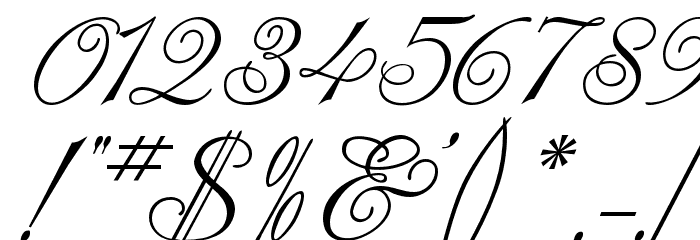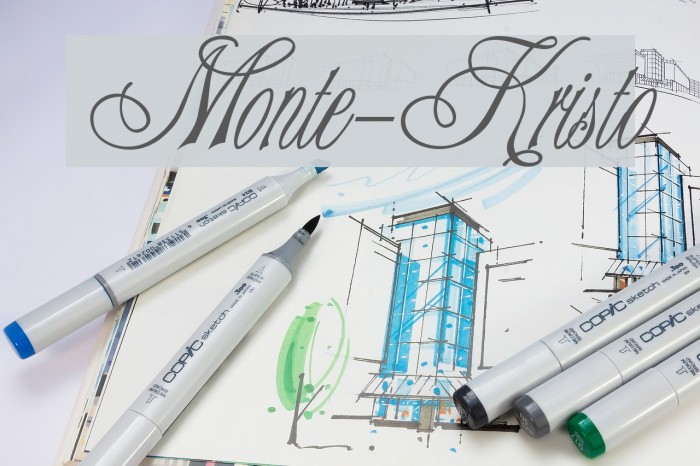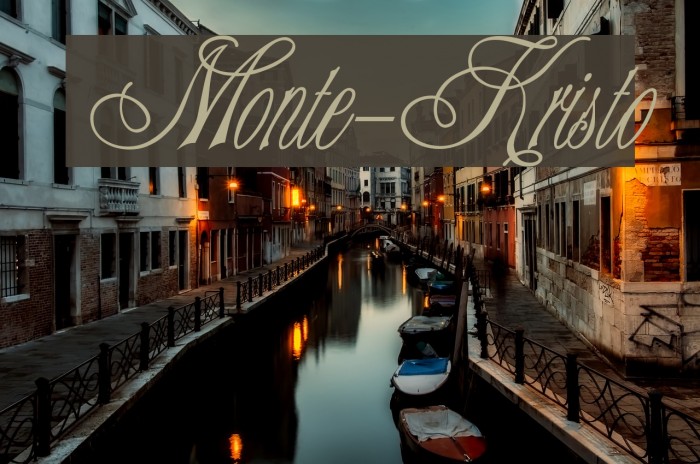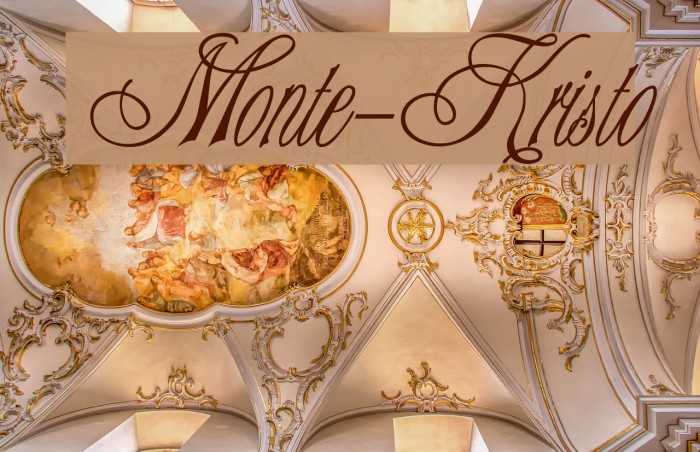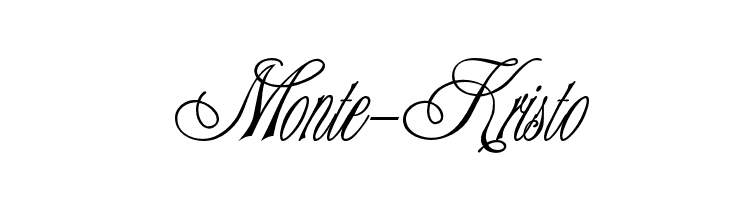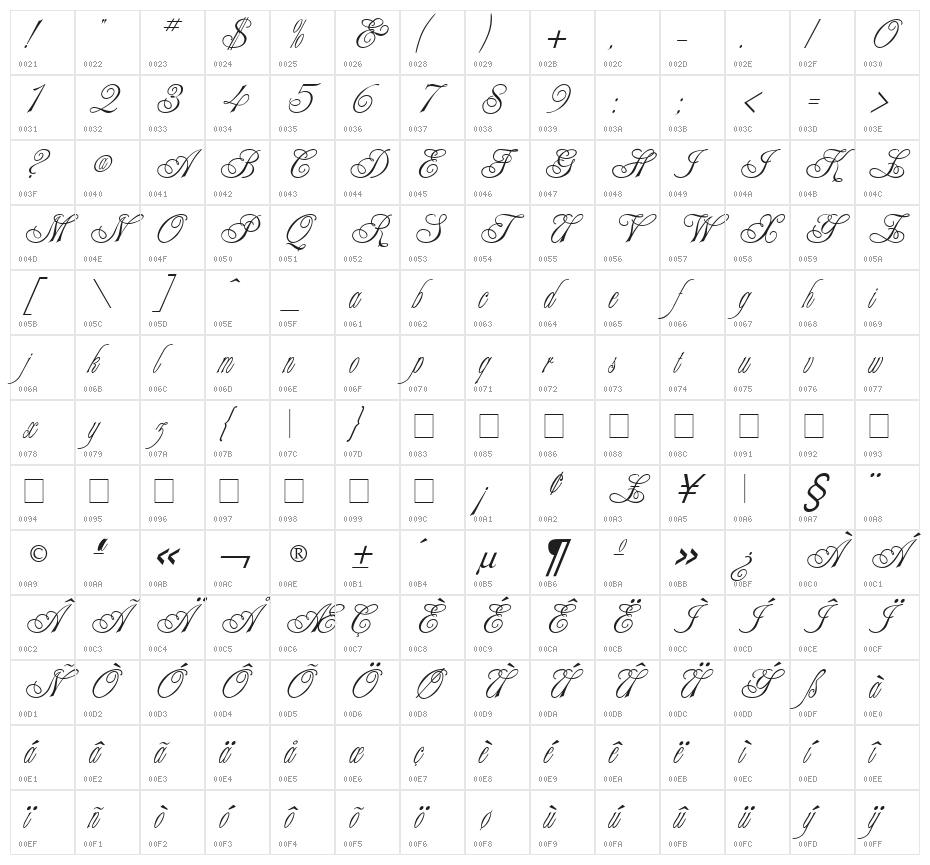
Monte-Kristo Font
This elegant script font features intricate, flowing letterforms with a classic and sophisticated appeal. The uppercase letters are adorned with elaborate swirls and loops, creating a sense of grandeur and formality. The lowercase letters maintain a graceful continuity, complementing the ornate uppercase with a slightly more restrained style. Numbers and special characters are designed with the same attention to detail, ensuring a cohesive look across all elements. The font's delicate lines and high contrast between thick and thin strokes add to its refined appearance, making it ideal for formal invitations, branding, and decorative projects.
An elegant script font with intricate, flowing letterforms and high contrast.
- Proposed Projects: Perfect for wedding invitations, luxury branding, formal event programs, and decorative signage.
- Category: Script
- Overall Style: Classic
- Use Case: Logos, Invitations, Decorative Text